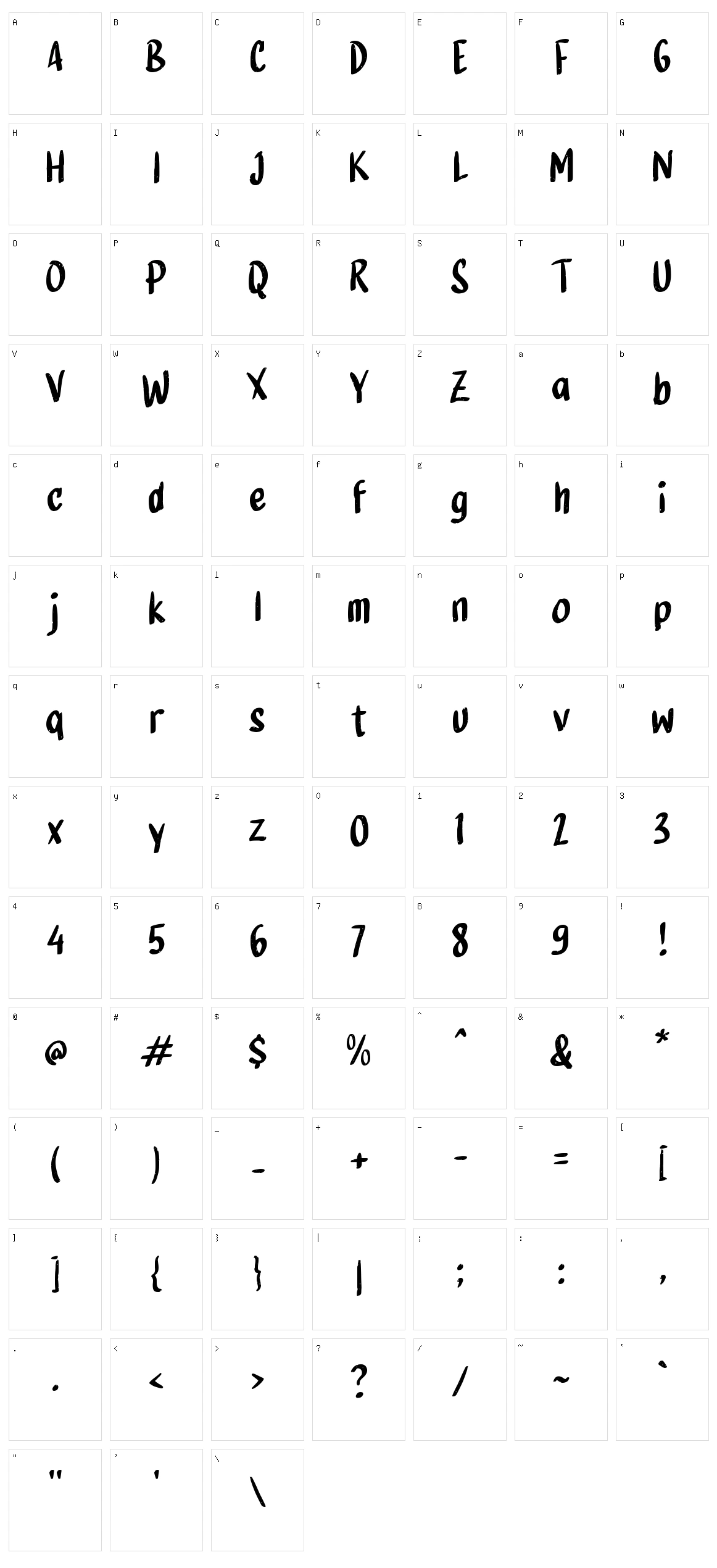
The free font g Gelodok is carefully designed by wep, showcasing a thoughtful balance of creativity and usability and falls under the Script font style. When you download the ZIP file, it contains only 24.23 KB of font files, making it lightweight and quick to download. Please review the license details below to understand permitted usage and distribution rights. If license information is not available, we recommend using this font for personal projects only or contacting the author directly for commercial usage permissions.